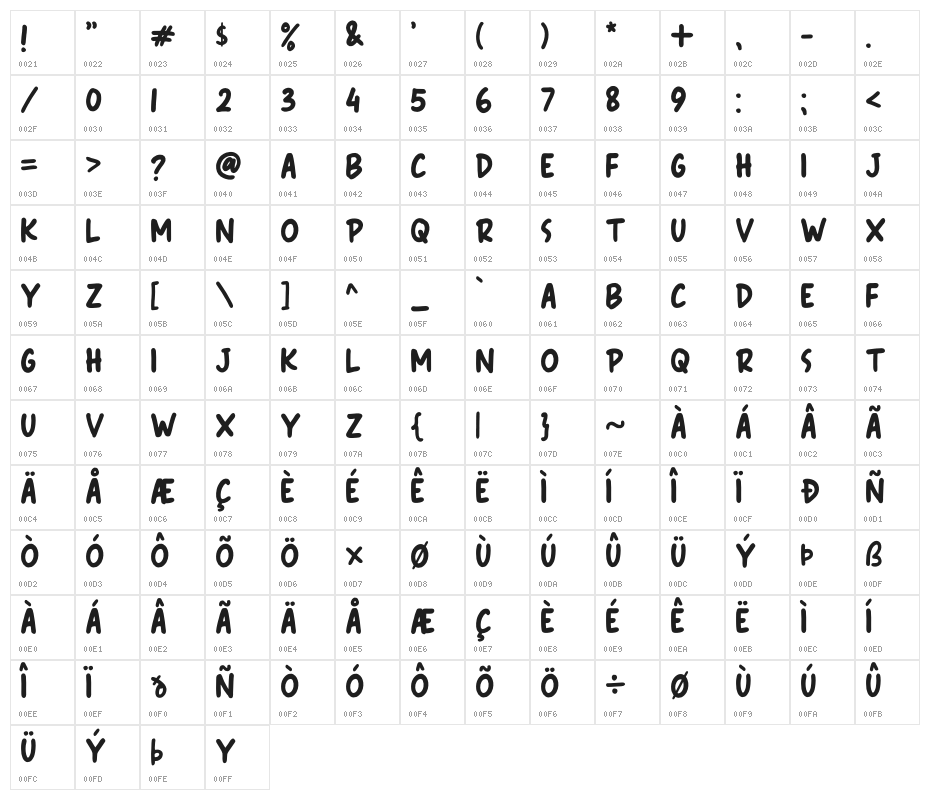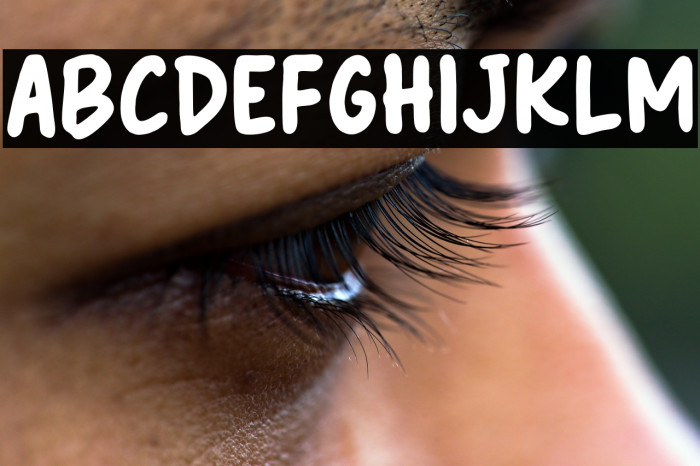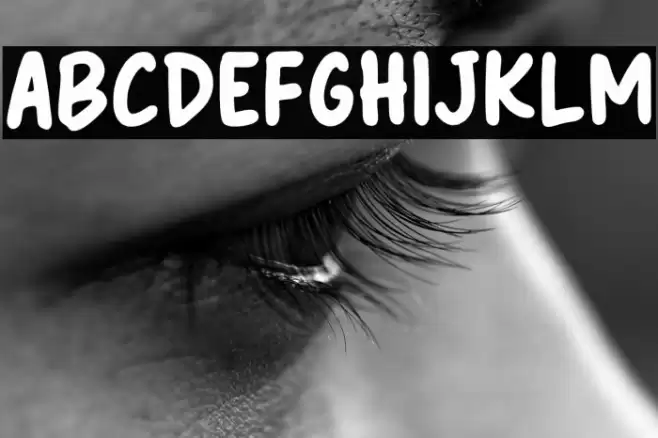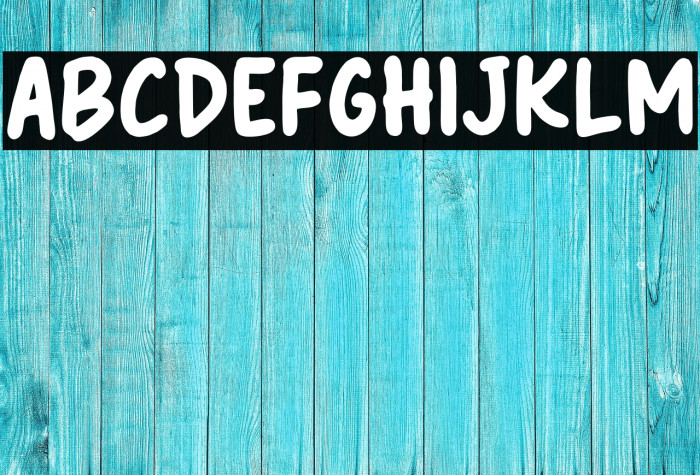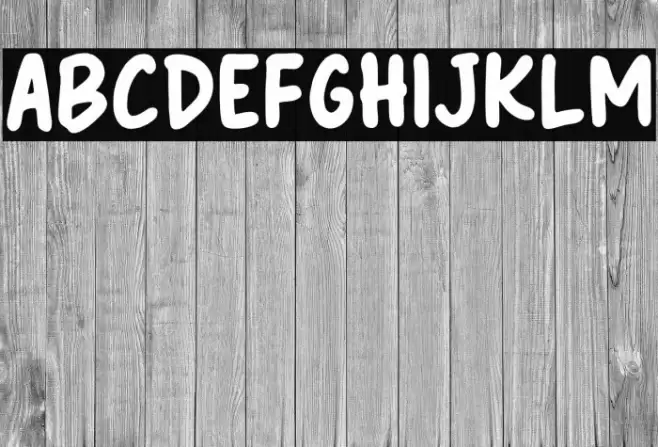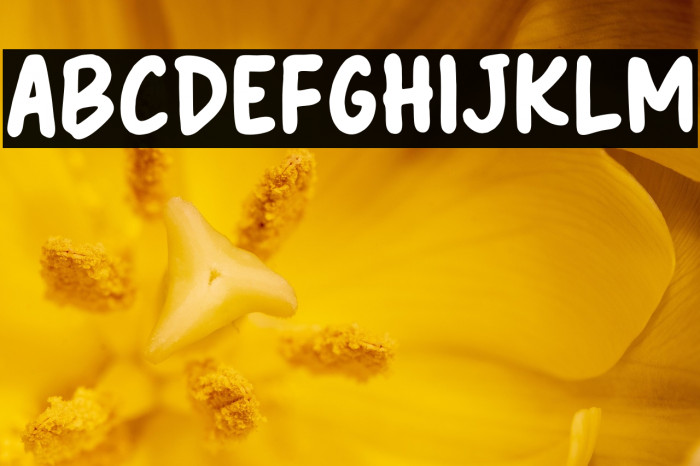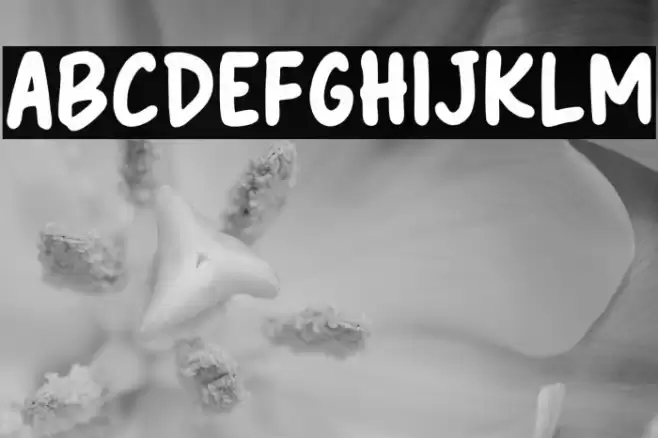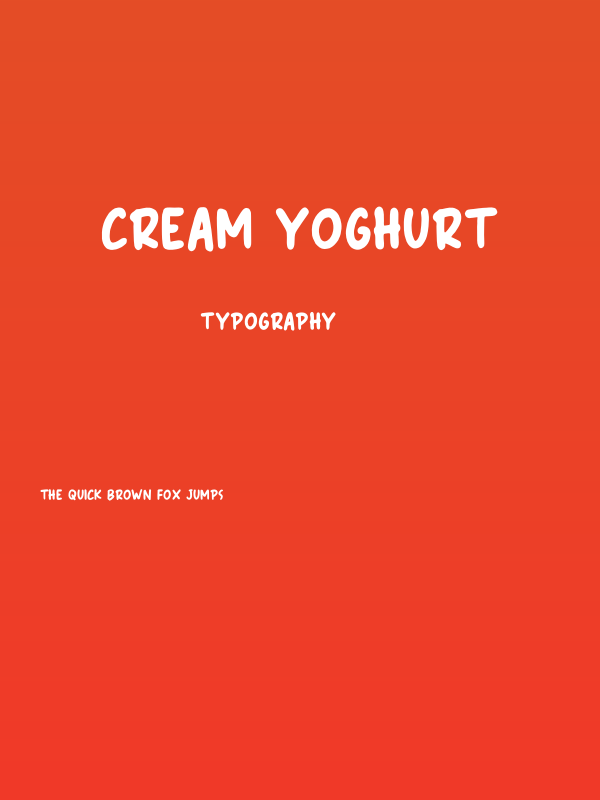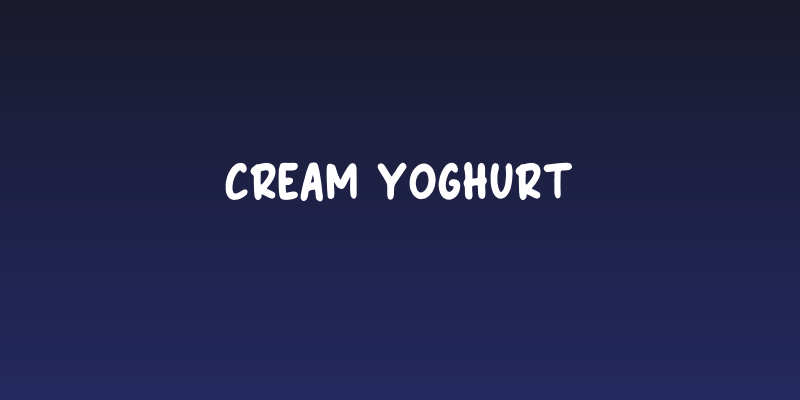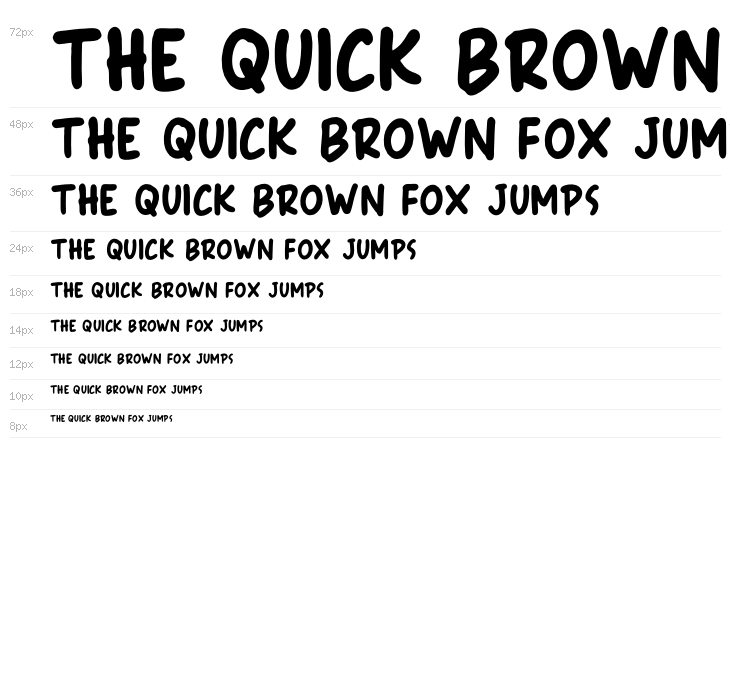
Cream Yoghurt Font
Cream Yoghurt Description
This playful and bold handwritten font exudes a casual and friendly vibe, making it perfect for projects that require a personal touch. The letters are rounded and slightly irregular, giving them a warm and approachable feel. The font maintains a consistent thickness throughout, which contributes to its bold appearance. Its informal style is ideal for creative projects, such as children's books, greeting cards, or playful branding. The character spacing is normal, allowing for easy readability while maintaining its unique style.
Overall StylePlayful
Use CaseHeadlines, Logos, Creative projects
Proposed ProjectsIdeal for children's books, greeting cards, playful branding, and creative projects.